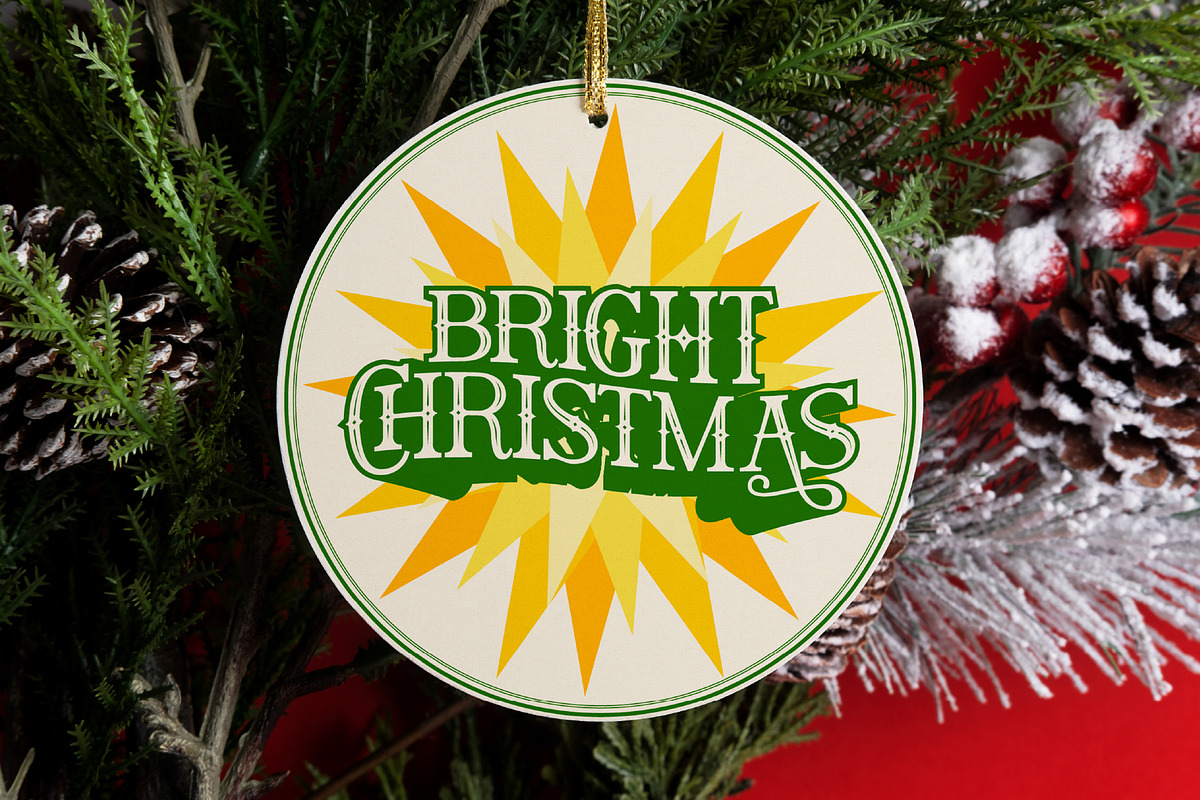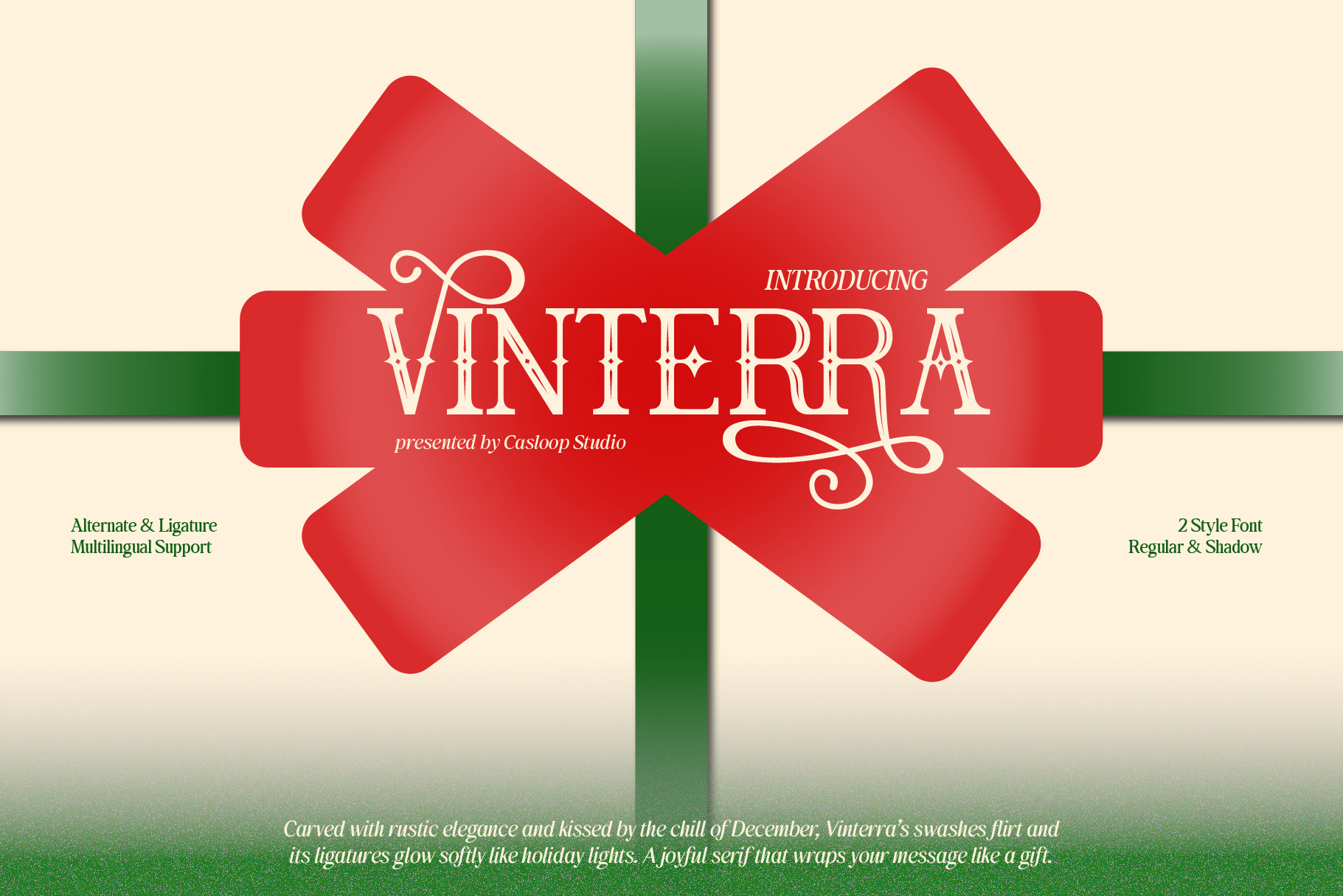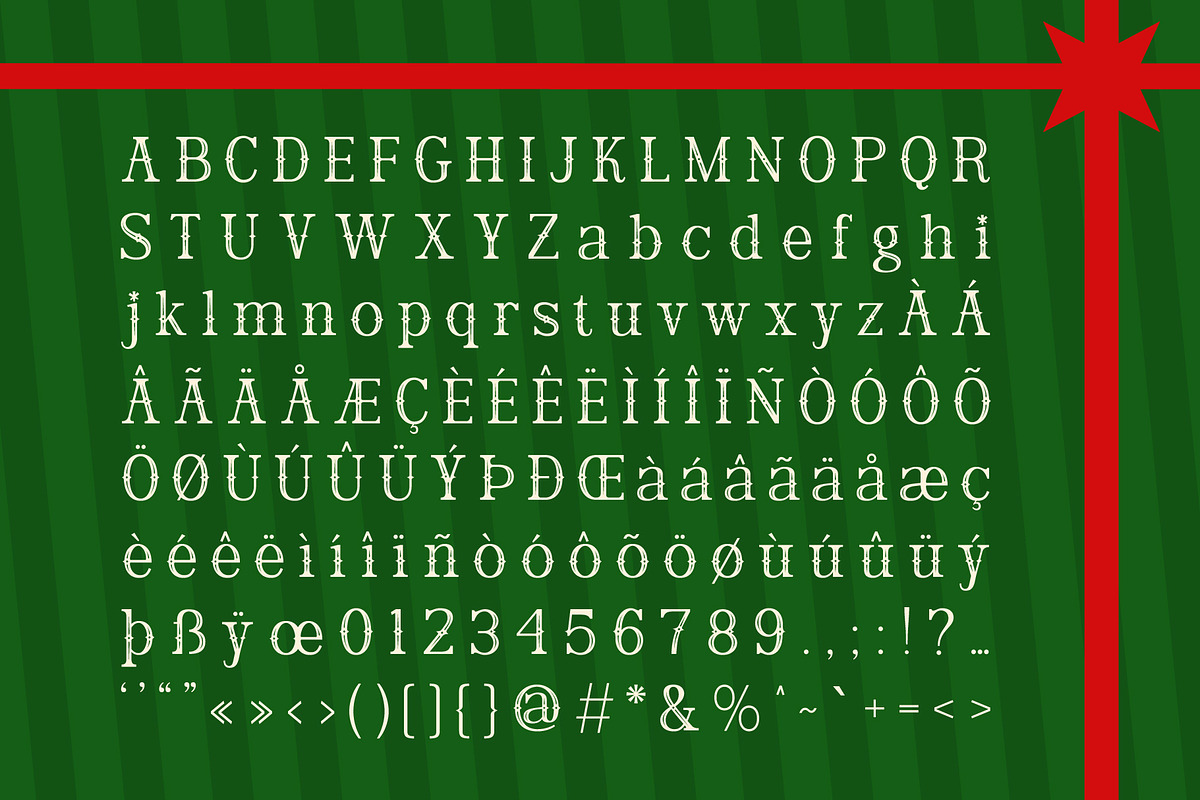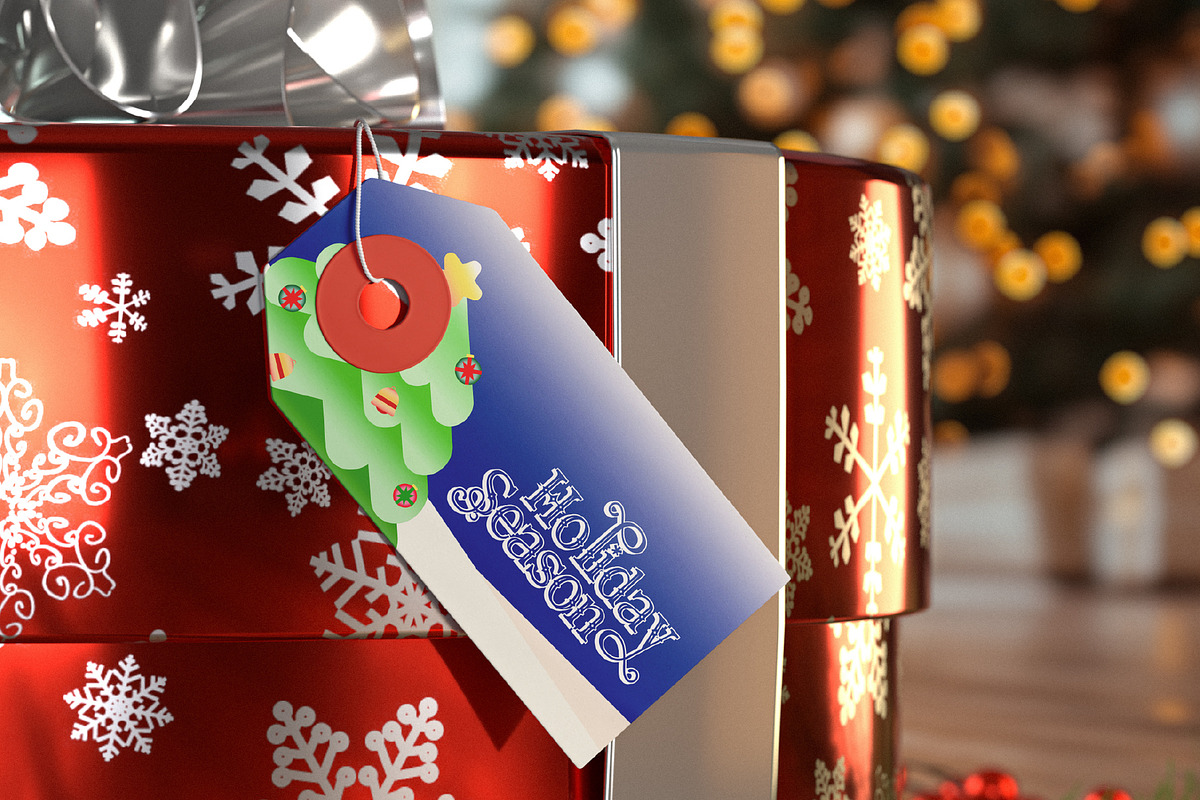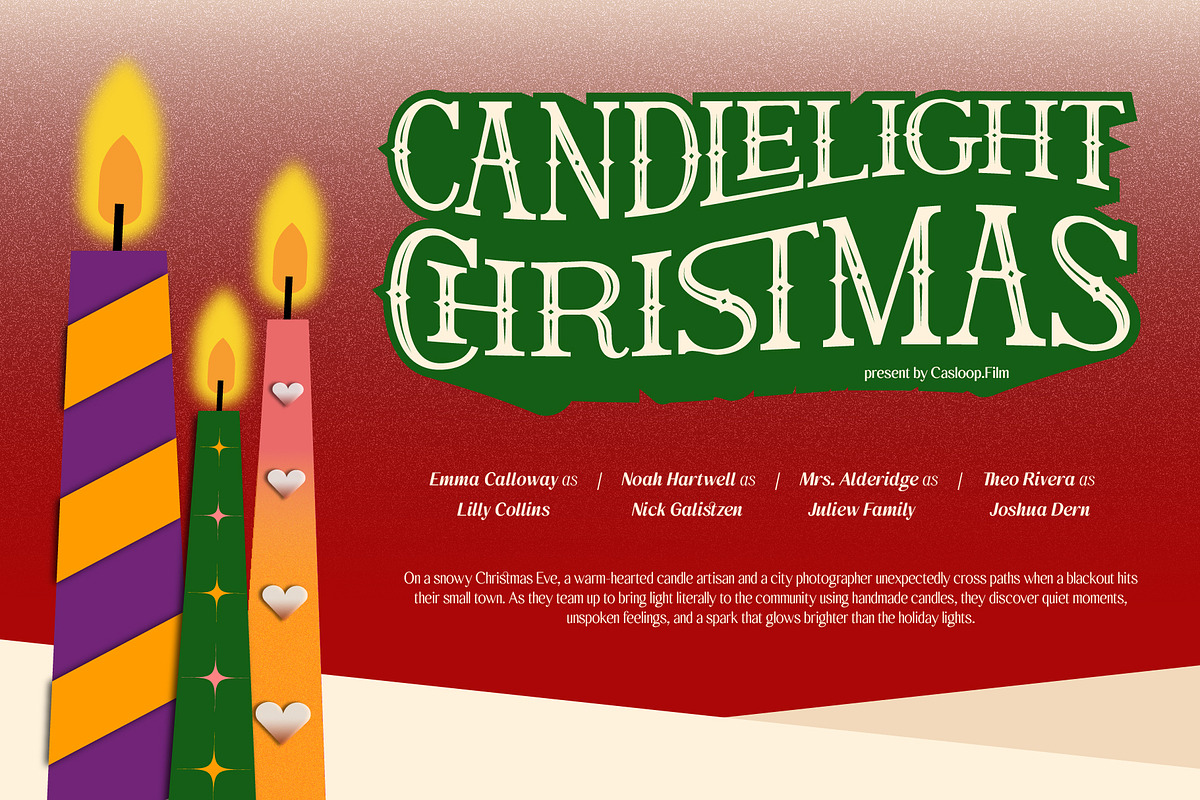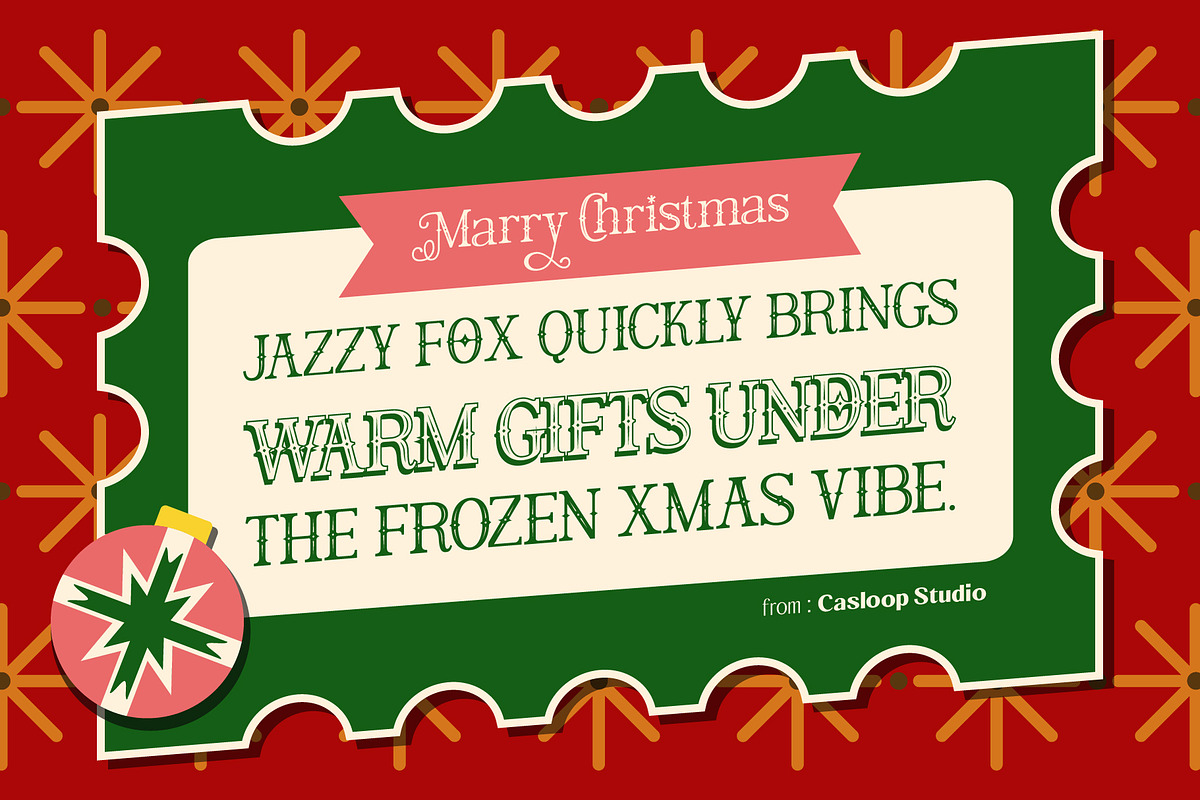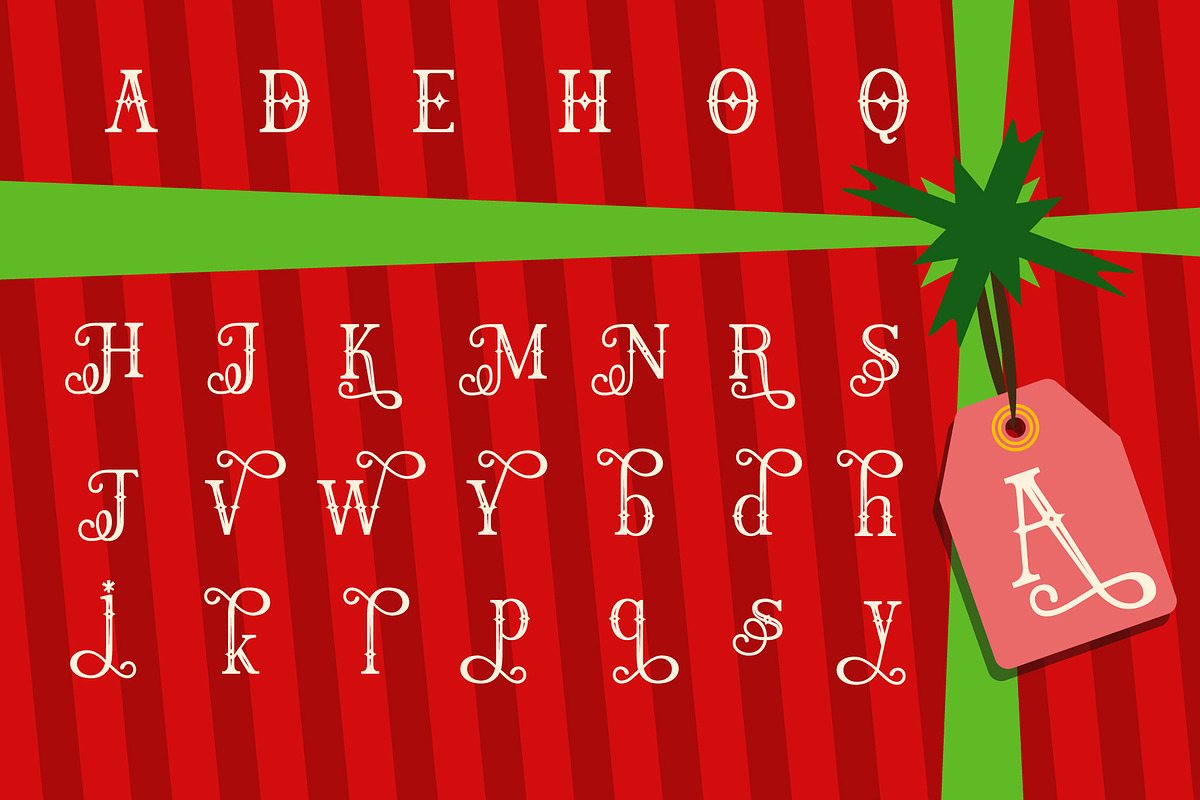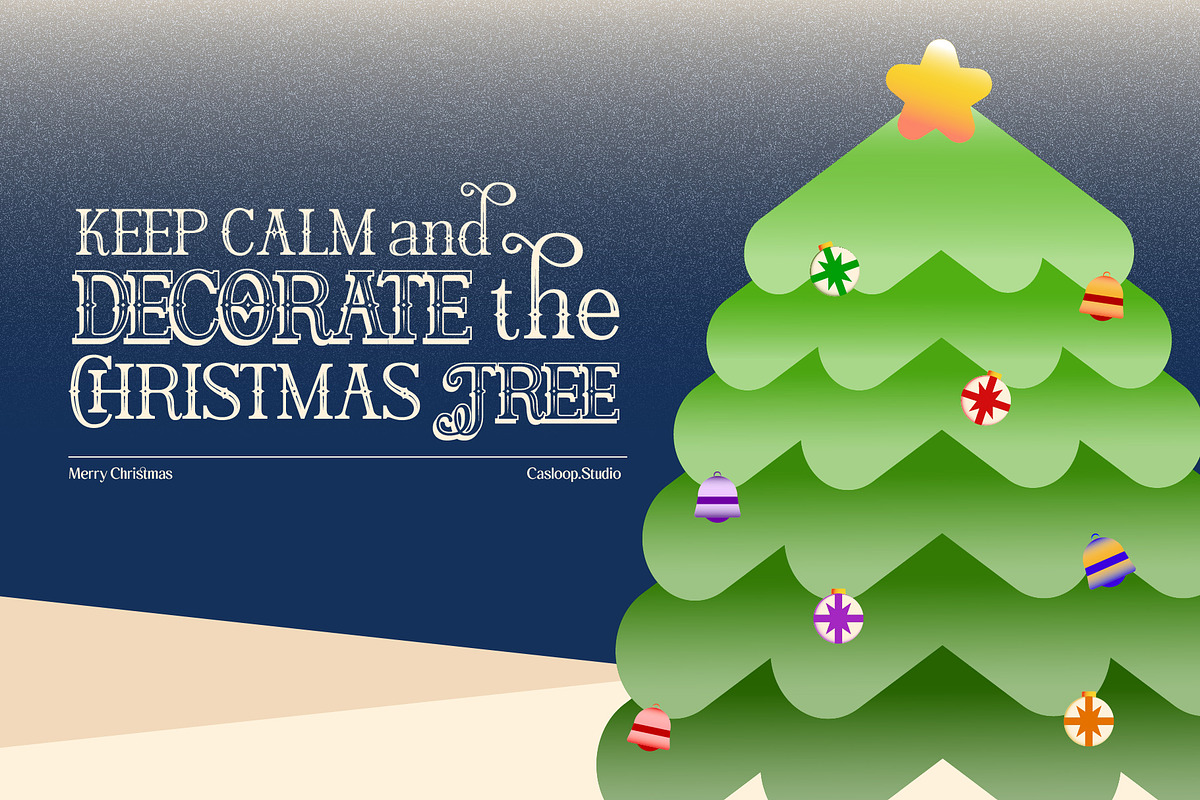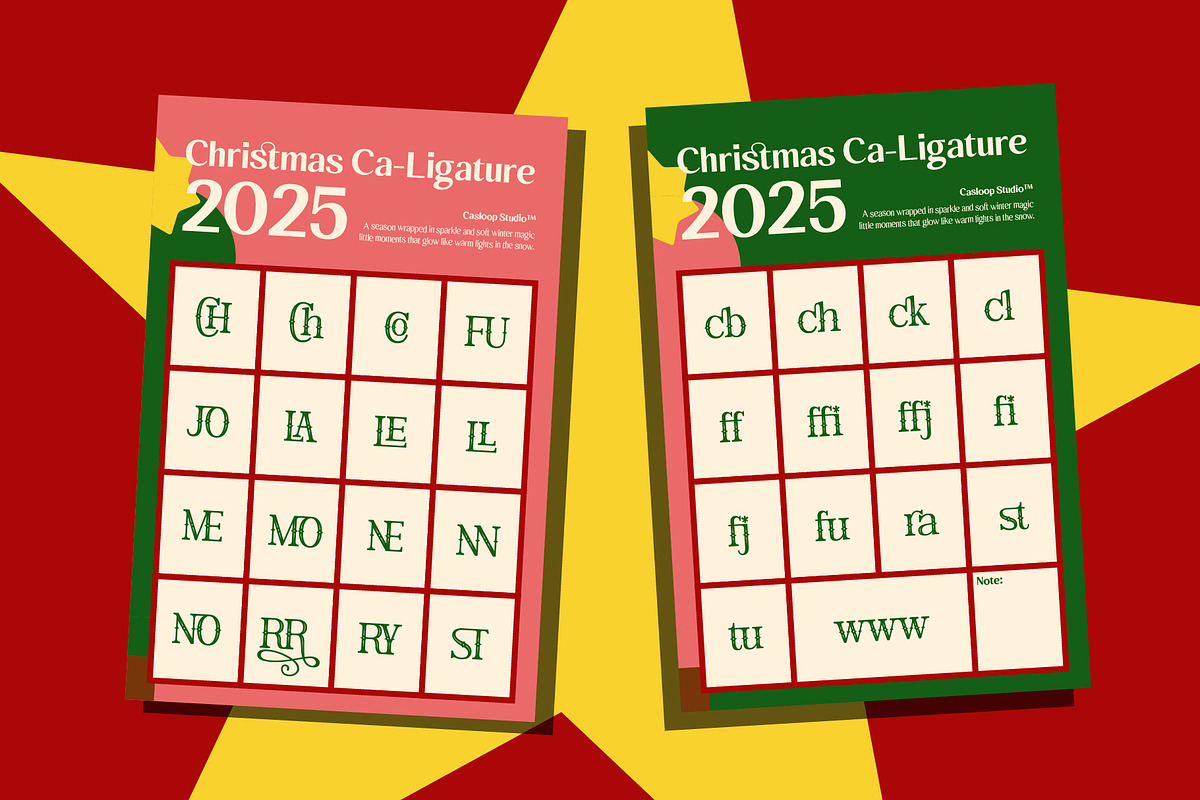
Vinterra - Modern Display Serif Font
VINTERRA is a modern display font crafted to wrap your designs in a gentle, festive glow. With minimalist shapes, elongated curves, and subtle ribbon-like loops, every letter feels like a carefully tied holiday bow — warm, graceful, and full of seasonal magic. Perfect for brands and creators seeking a Christmas aesthetic that’s clean, modern, and beautifully intentional. This typeface blends contemporary simplicity with soft festive flair, allowing it to shift effortlessly from elegant to playful. Its signature characters — A, J, K, M, R, V, W, Y — carry expressive long loops reminiscent of gift ribbons, giving any headline a delightful touch of celebration. From cozy winter greetings to premium holiday branding, VINTERRA brings a polished yet whimsical presence.
Personality:
- “Modern” – clean forms with intentional minimalism
- “Festive” – subtle curves echo holiday ribbons & winter charm
- “Elegant” – refined strokes for premium Christmas visuals
Feels like: gift tags, holiday cards, warm winter storefronts, premium packaging, joyful seasonal posters
Best For: Holiday display headlines & modern festive titles Christmas branding & seasonal marketing campaigns Minimalist pairings with clean body text Gift packaging, greeting cards & winter merchandise Social media visuals with a premium festive touch Compatible with: Adobe Illustrator, Photoshop, Affinity, Figma, Canva, Kittl